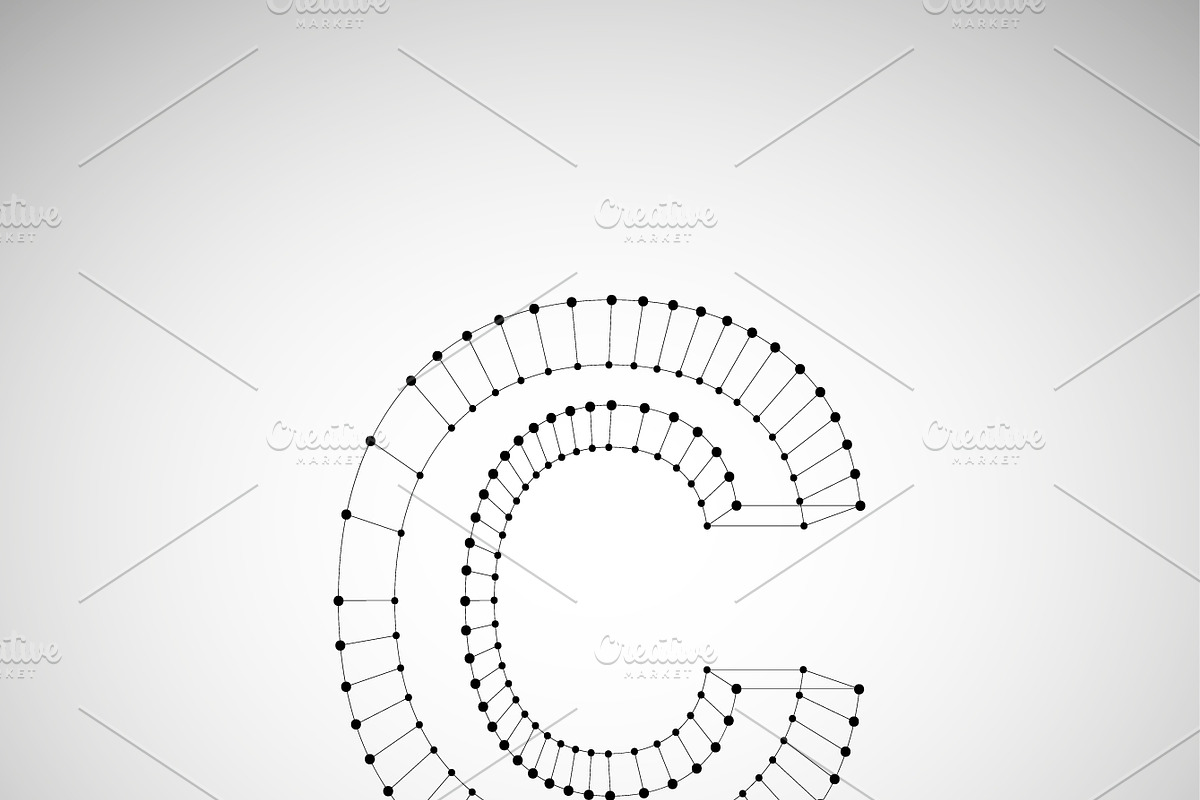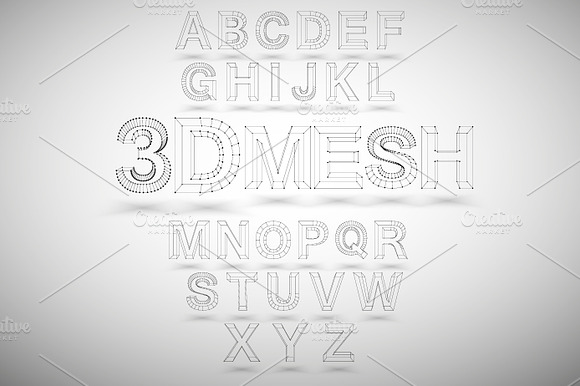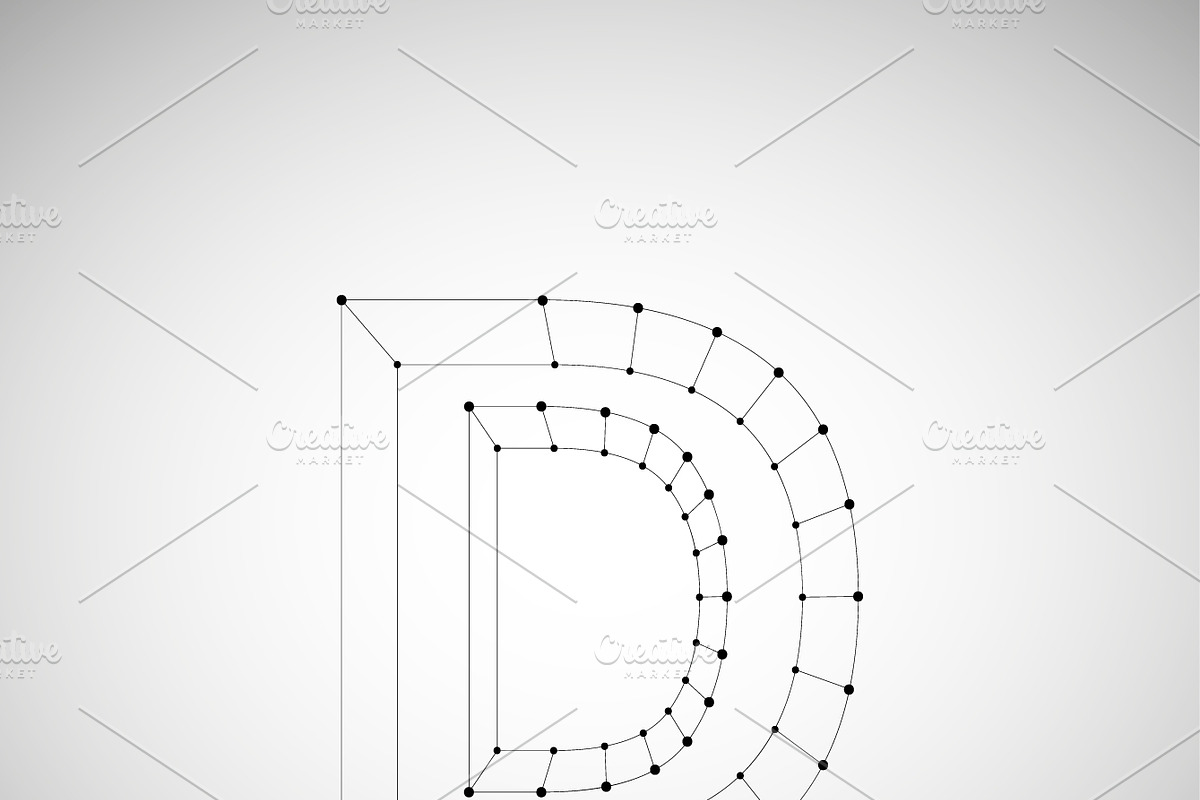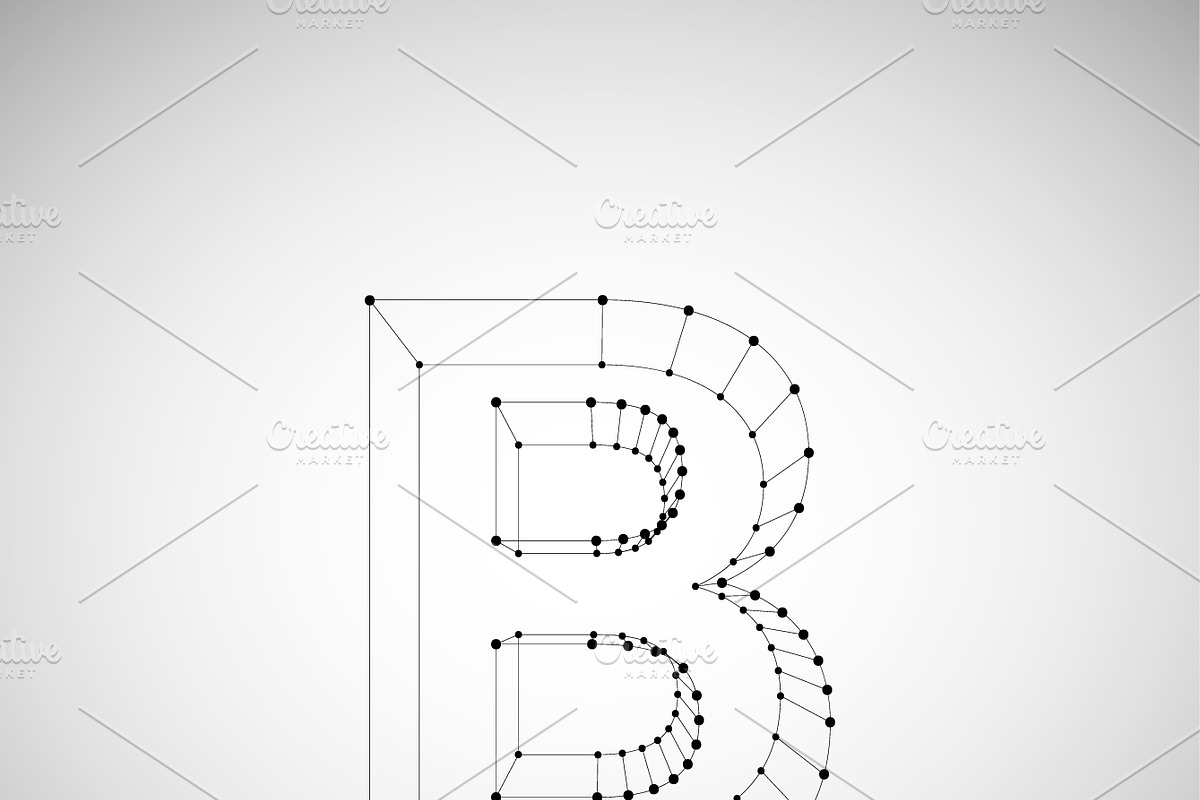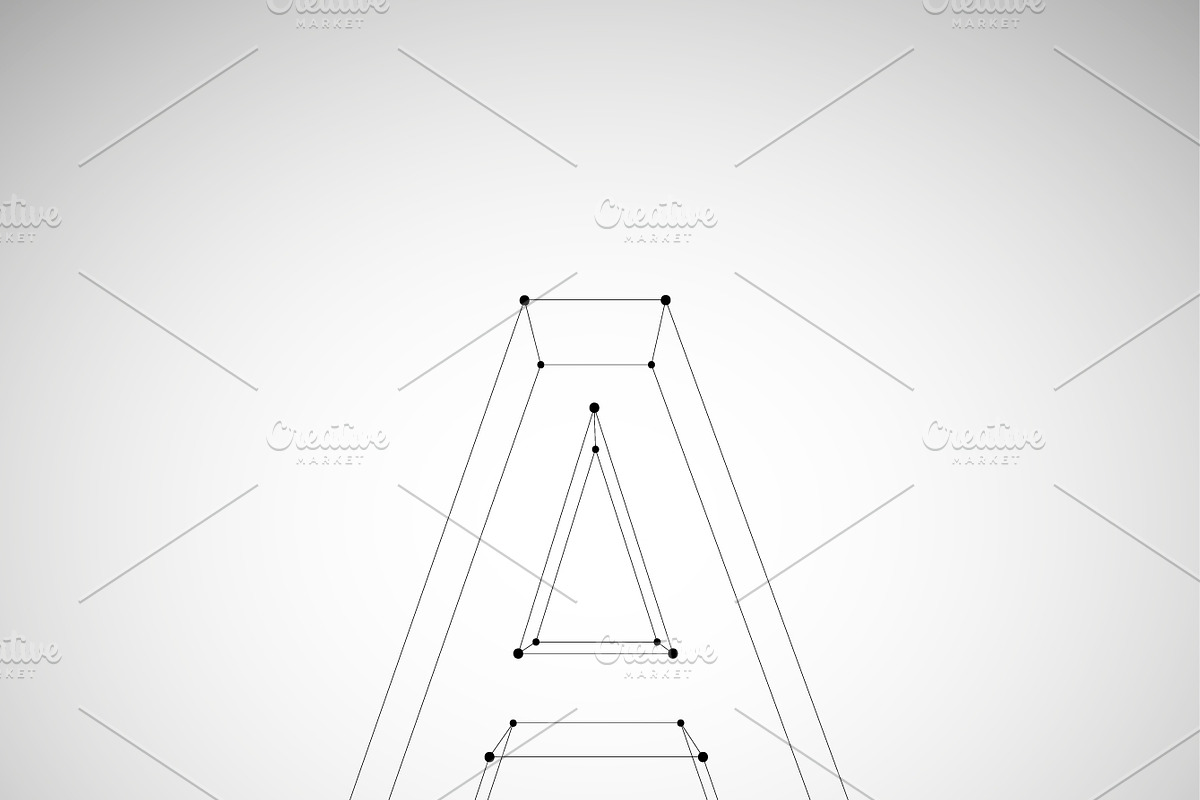
3D Mesh Vector Font
Three dimensional mesh stylish vector font on white background, single color clear vector. Set contains:
Why 3D Mesh Vector Font is worth a look
3D Mesh Vector Font by VectorShop fits naturally into Editorial graphics, posters, social visuals, brand projects.
- Editorial graphics
- social visuals
- brand projects